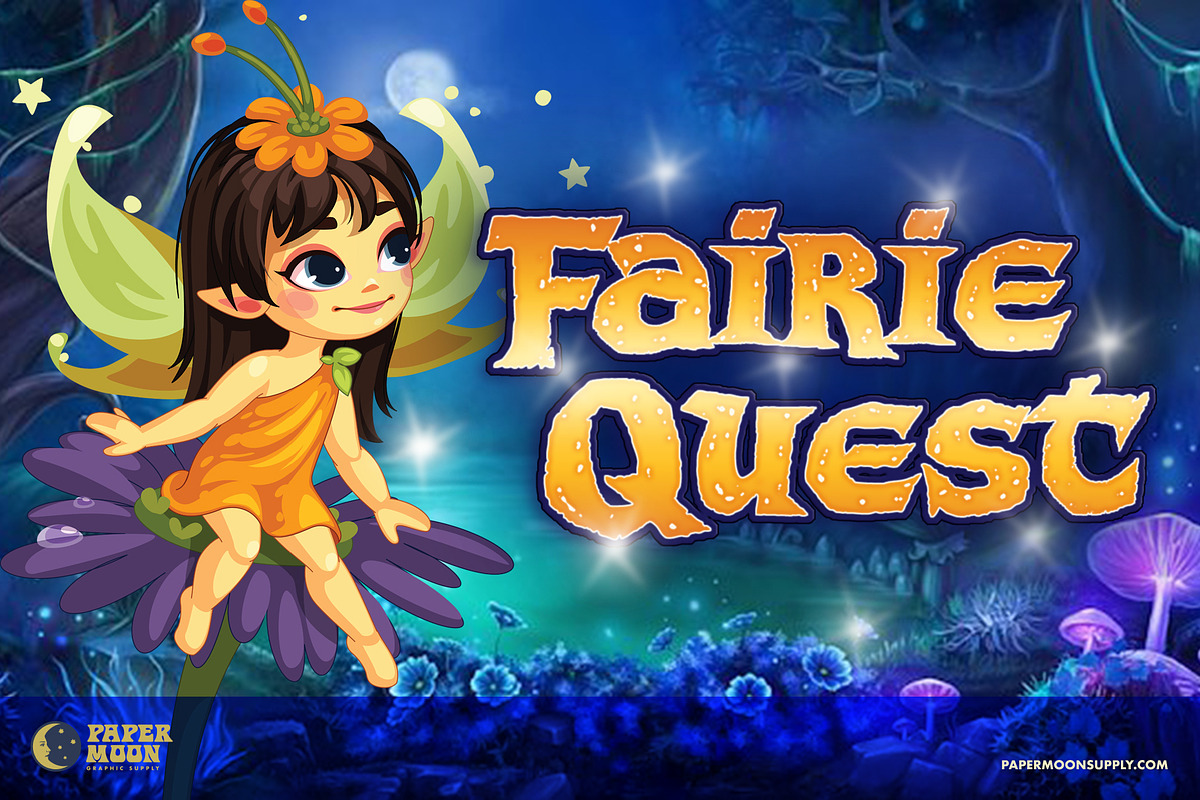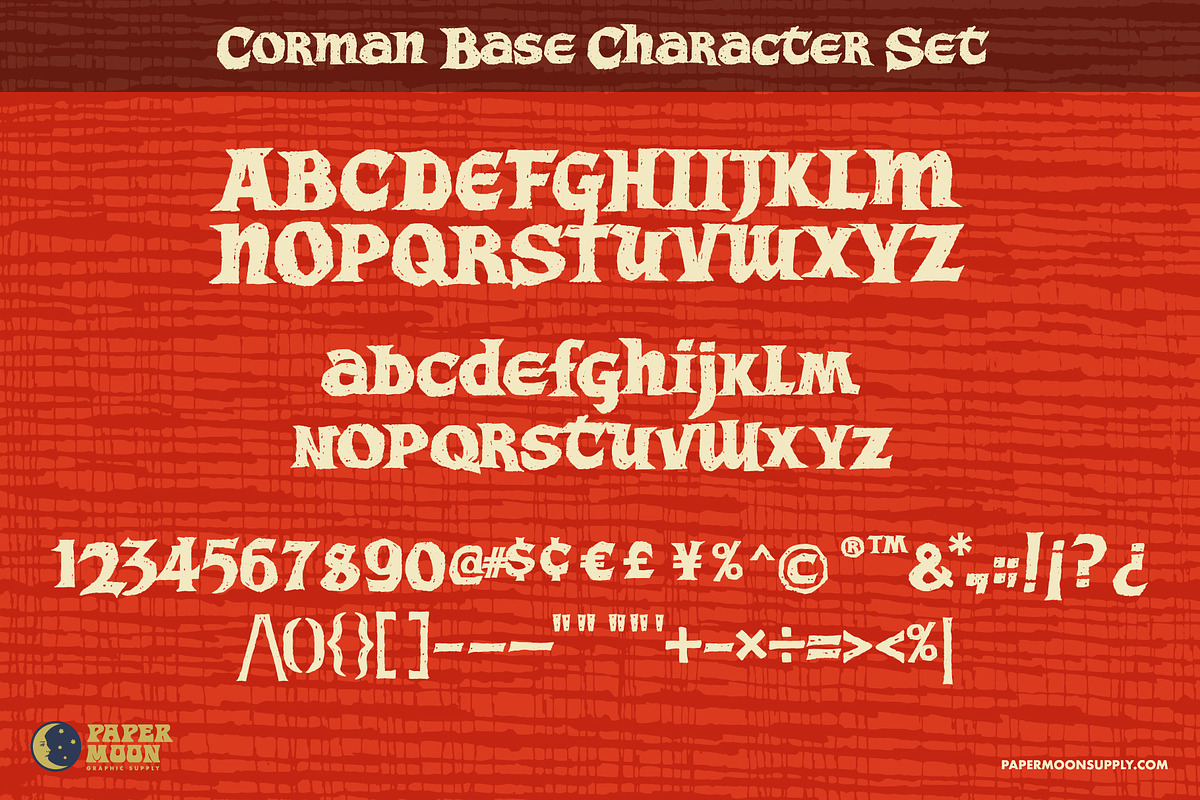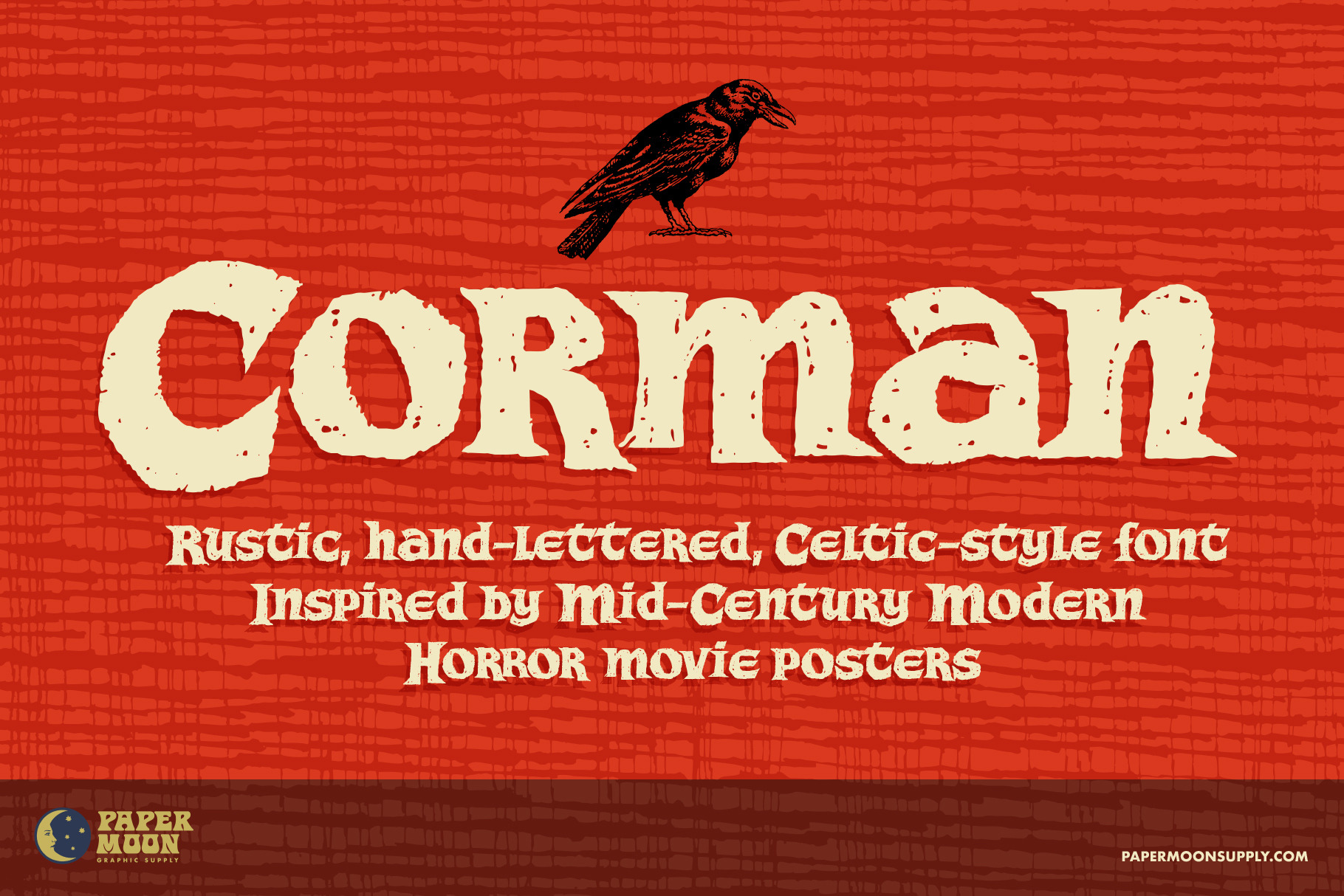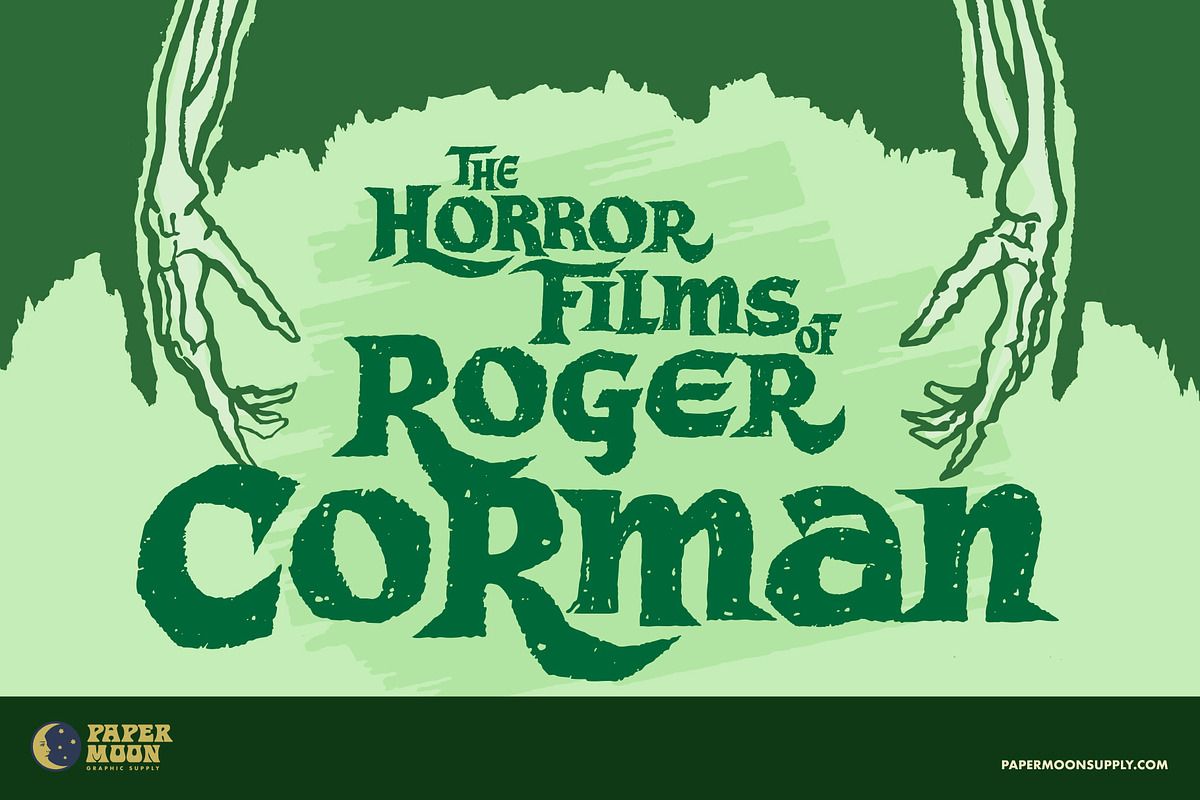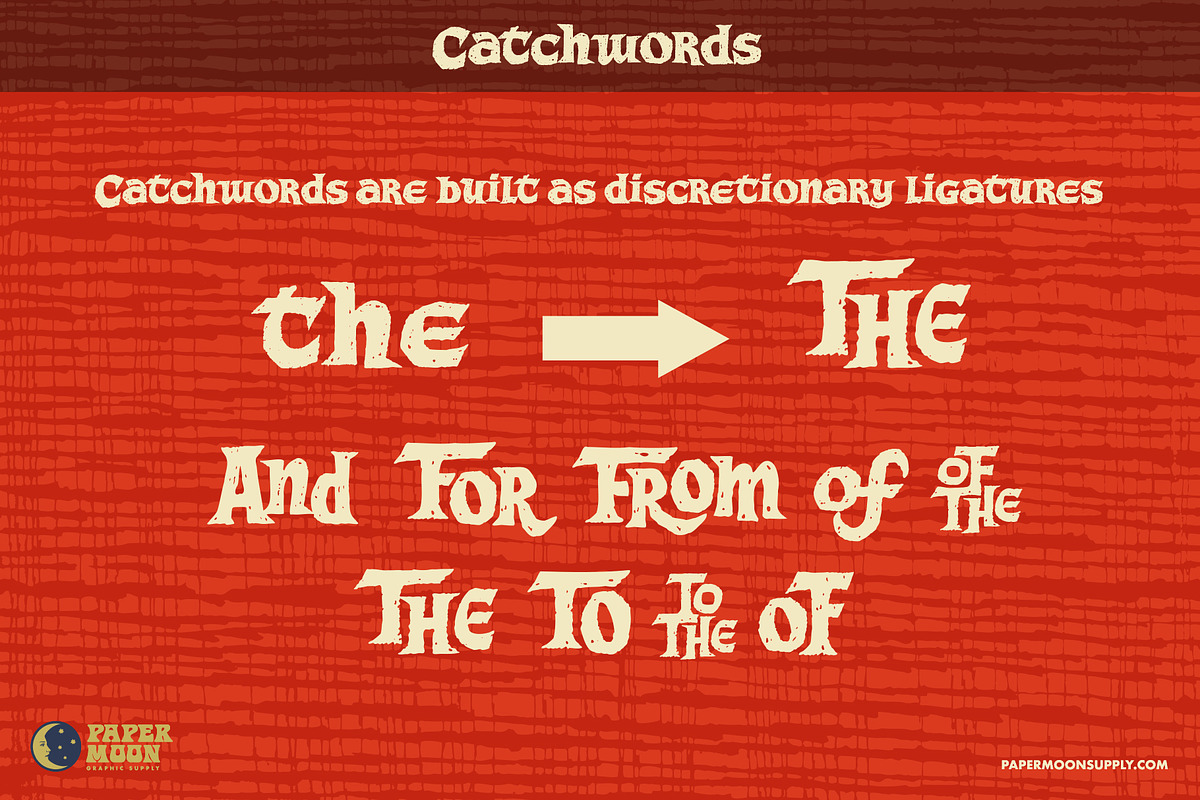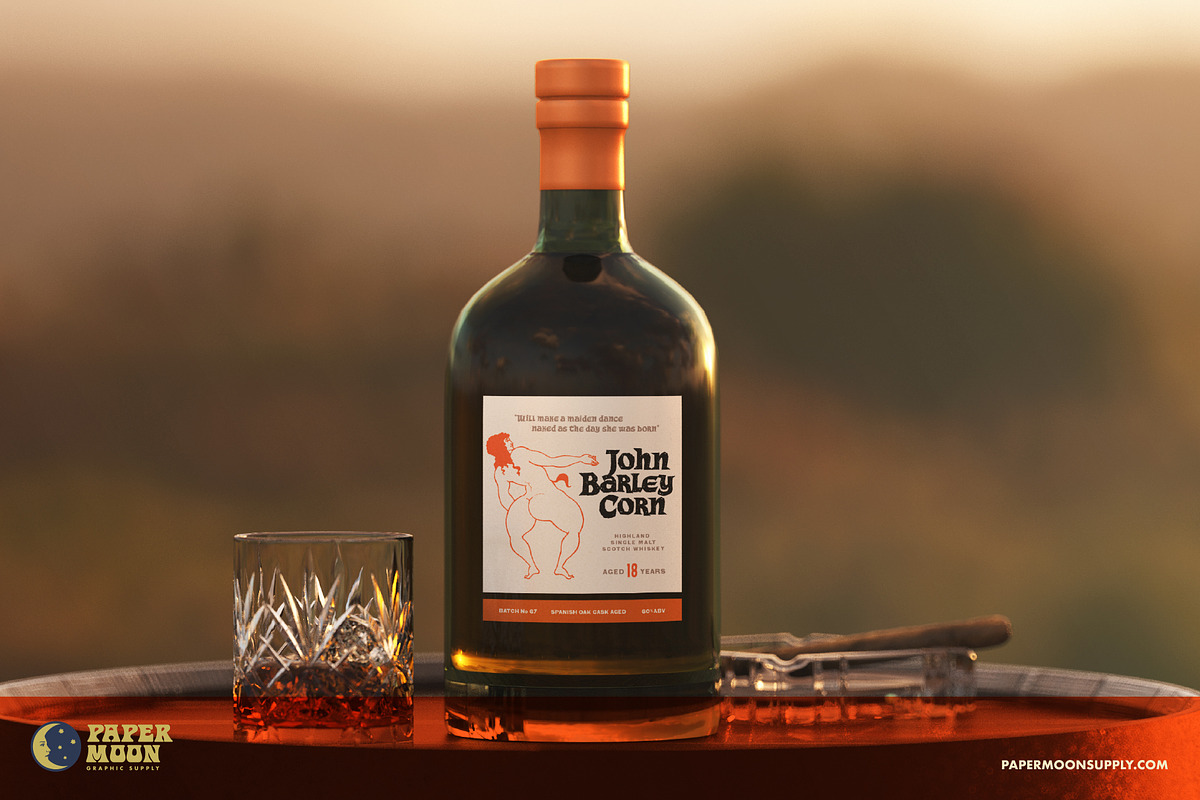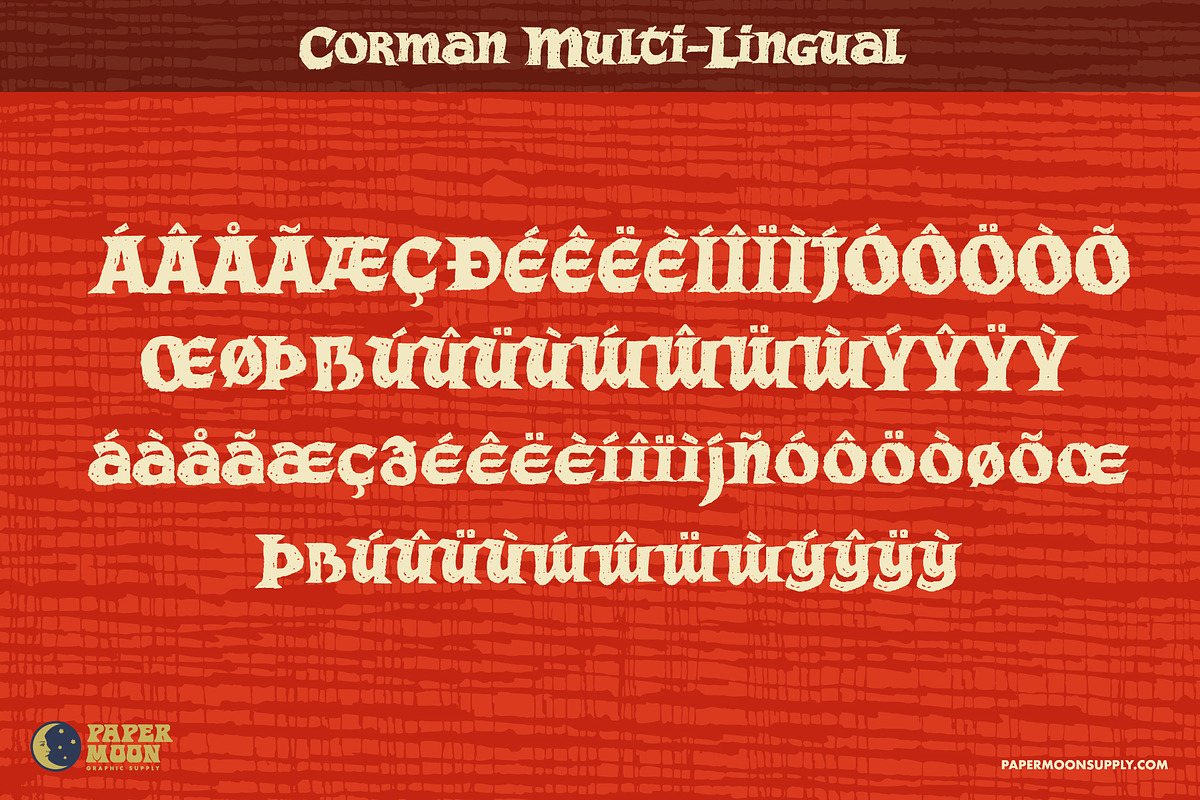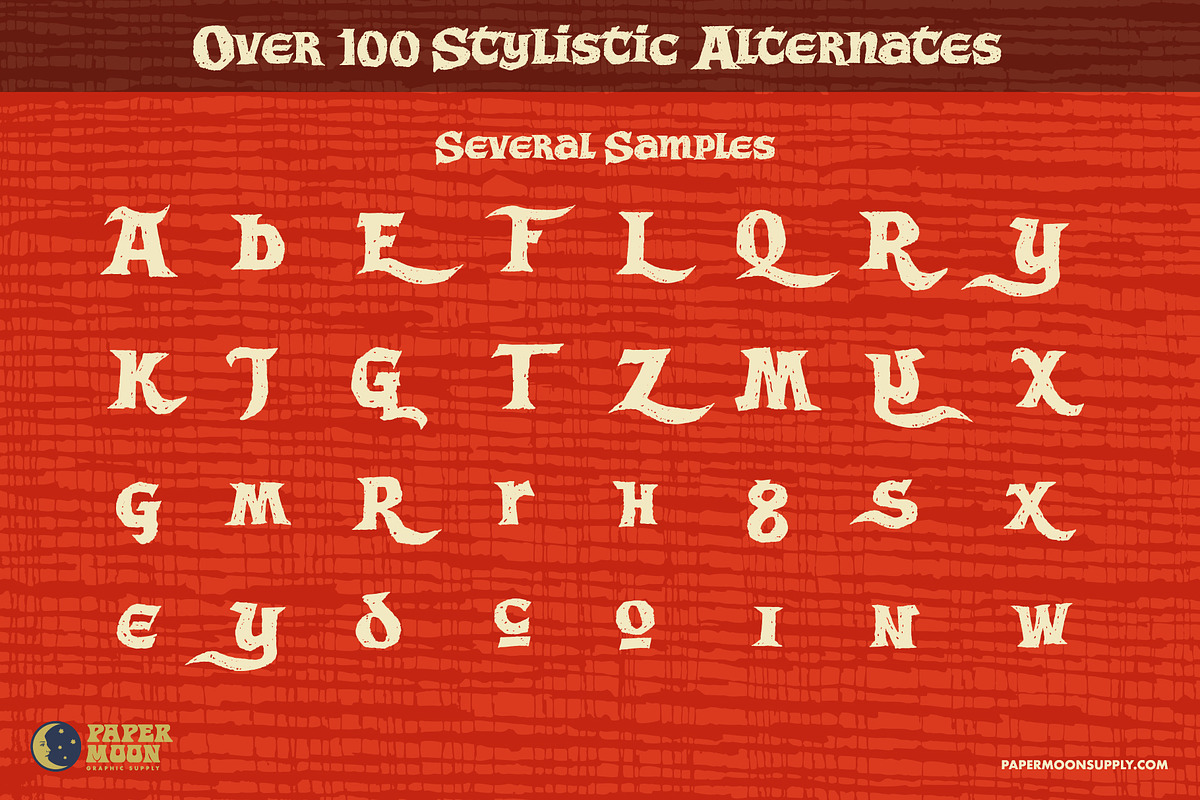
Corman Hand Drawn Celtic Font
A new font by Paper Moon Graphic Supply
Corman is a rustic, hand-lettered, Celtic-style font inspired by the typography on 1960s horror movie posters from the films directed by Roger Corman starring Vincent Price and the “bat” pack.
- Highly-detailed digital reproduction of hand-lettered font
- Includes catchwords ad discretionary ligatures
- Over 150 OpenType contextual alternates
- Complete alphabet, number, and punctuation sets
- Created by Scott Banks of Persuasion Bureau
Corman was developed by award-winning illustrator and designer Scott Banks.